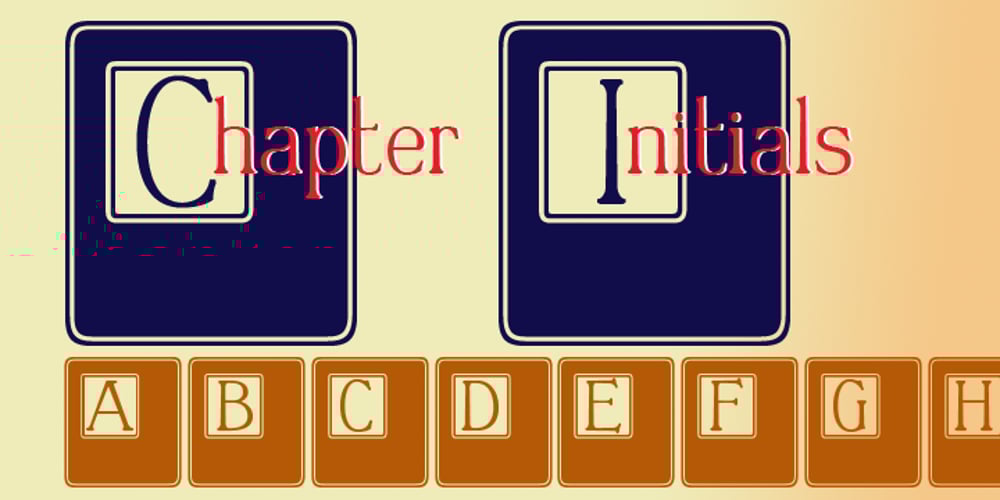
Chapter Initials Font Family was designed by Paul James Lloyd and published by Greater Albion Typefounders. Chapter Initials contains 1 styles and family package options. Chapter Initials provide a true demonstration of how elegant simplicity can be modern yet retain traditional character without the blandness which seems so common these days. It’s ideal for exactly what the name implies, providing elegant initial capitals with which to commence a chapter. The design also has uses in Poster layout and compliments Greater Albion’s Vertrina particularly well.